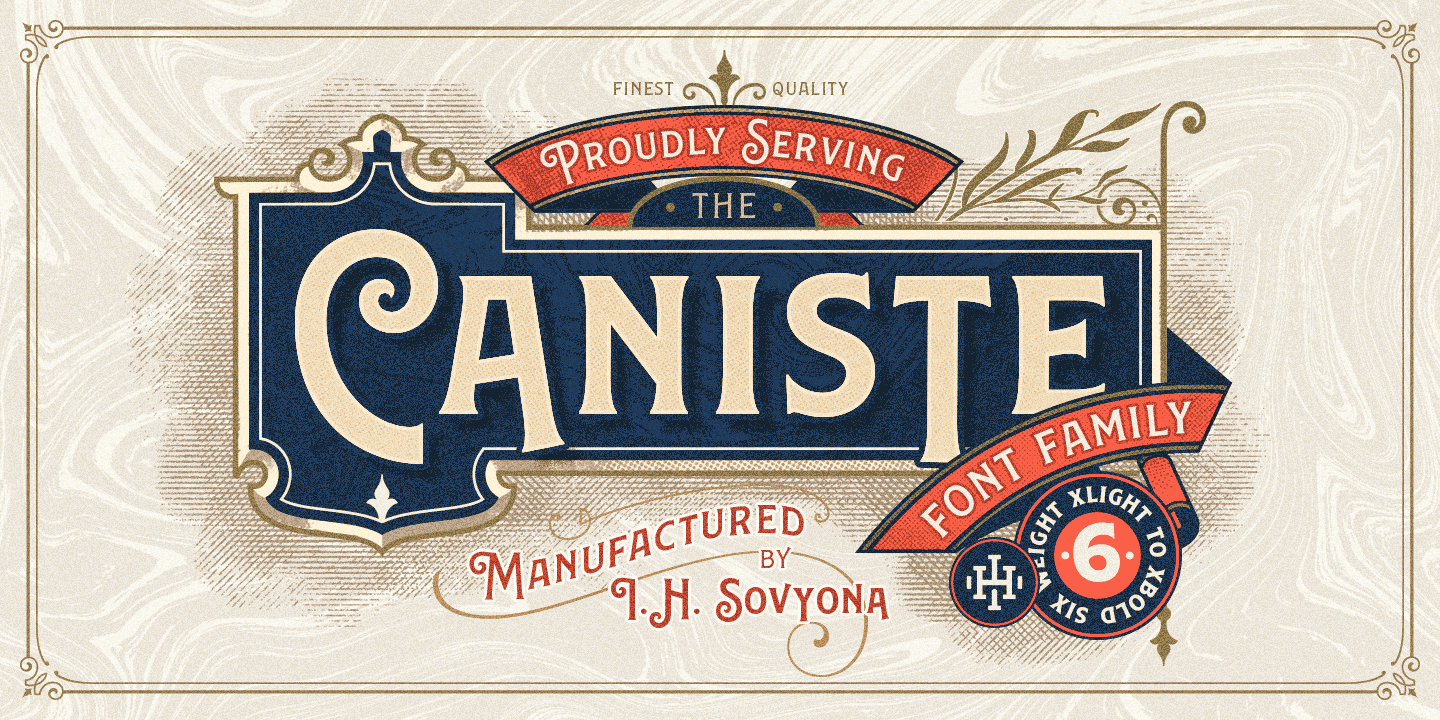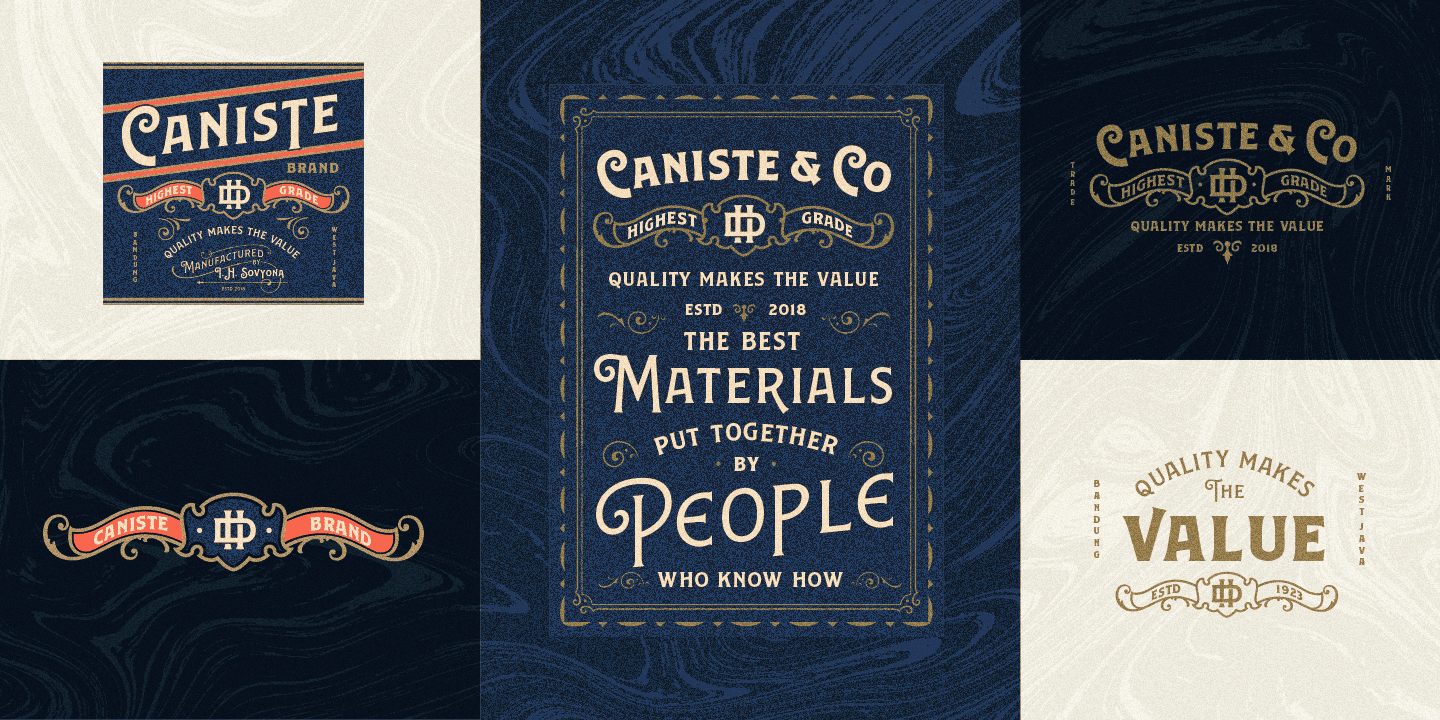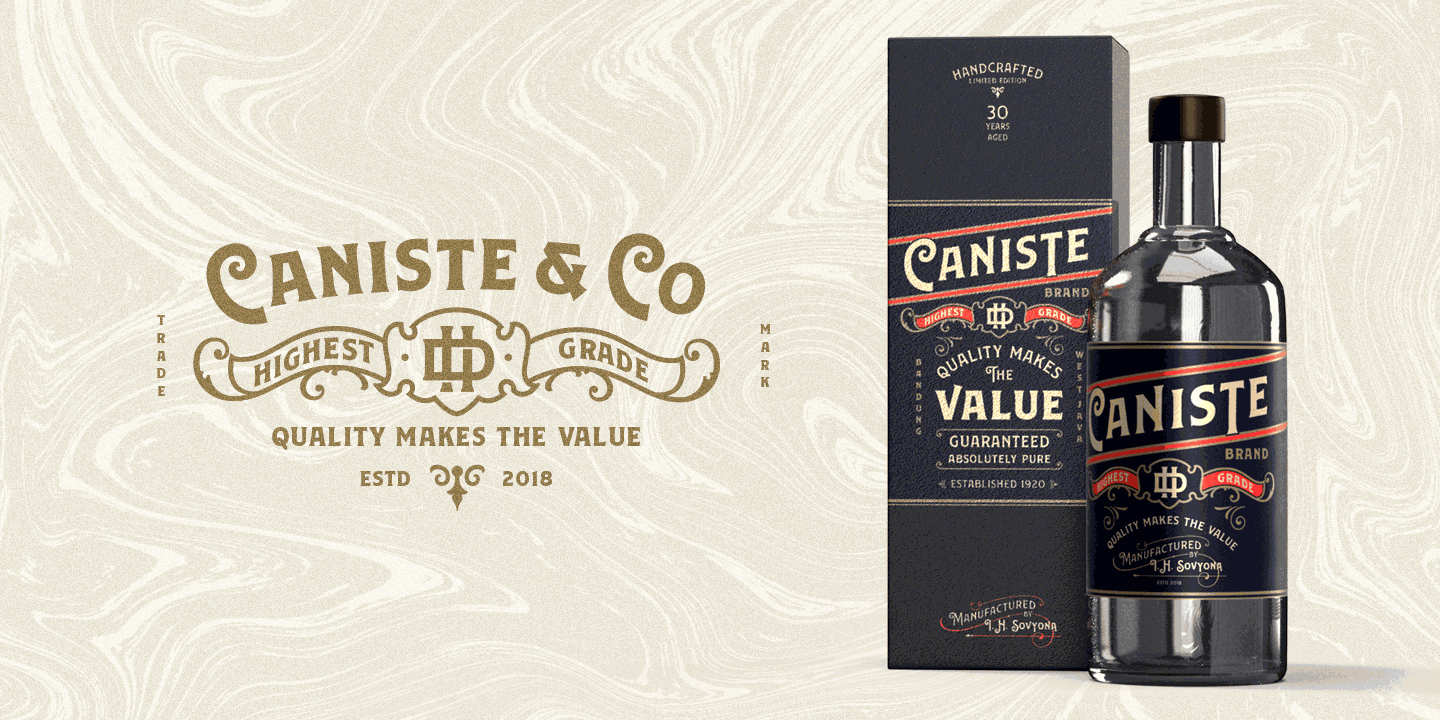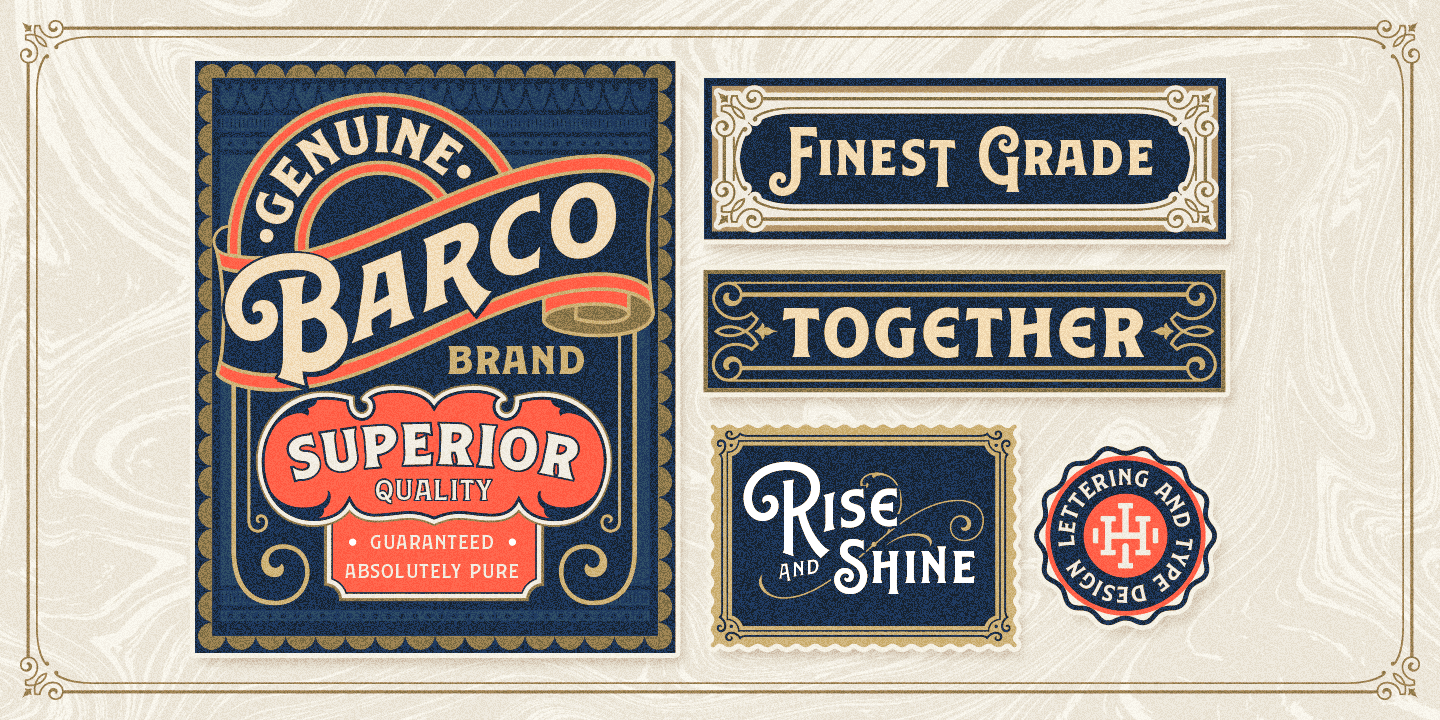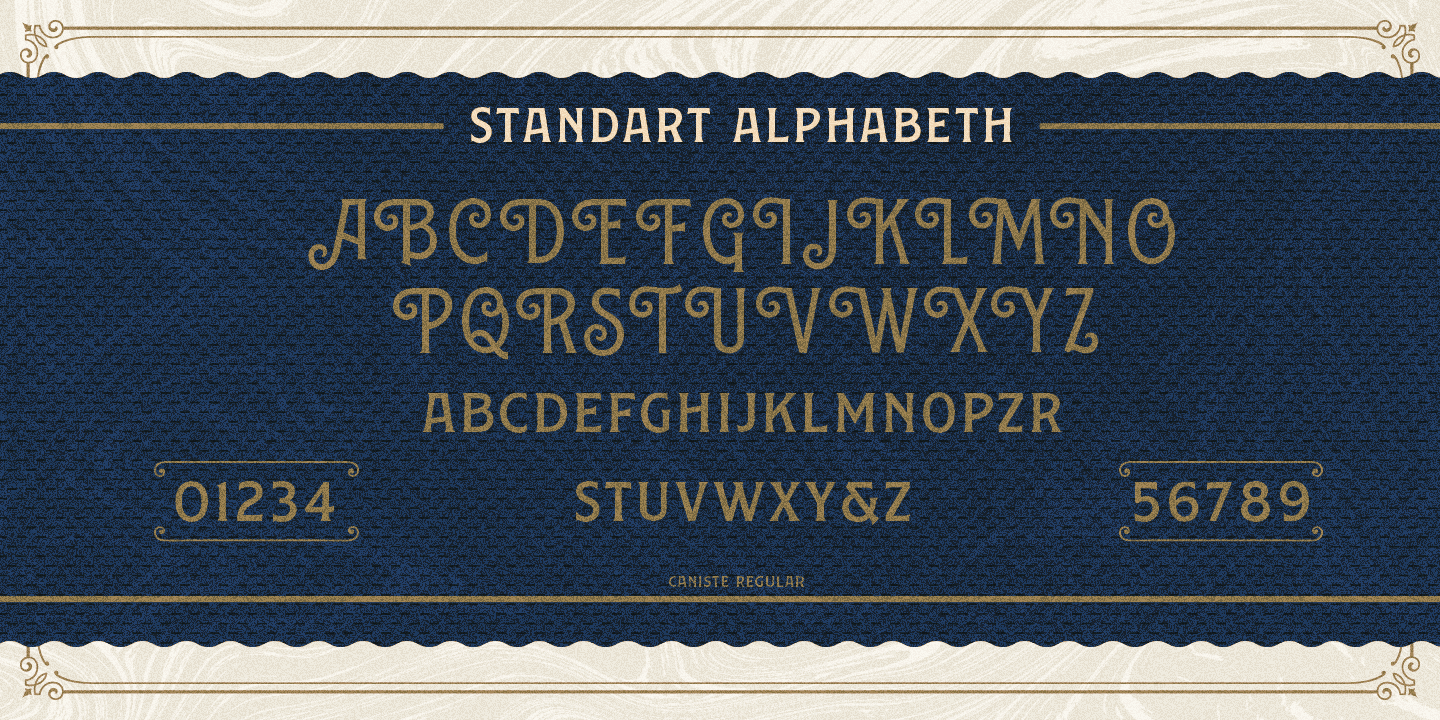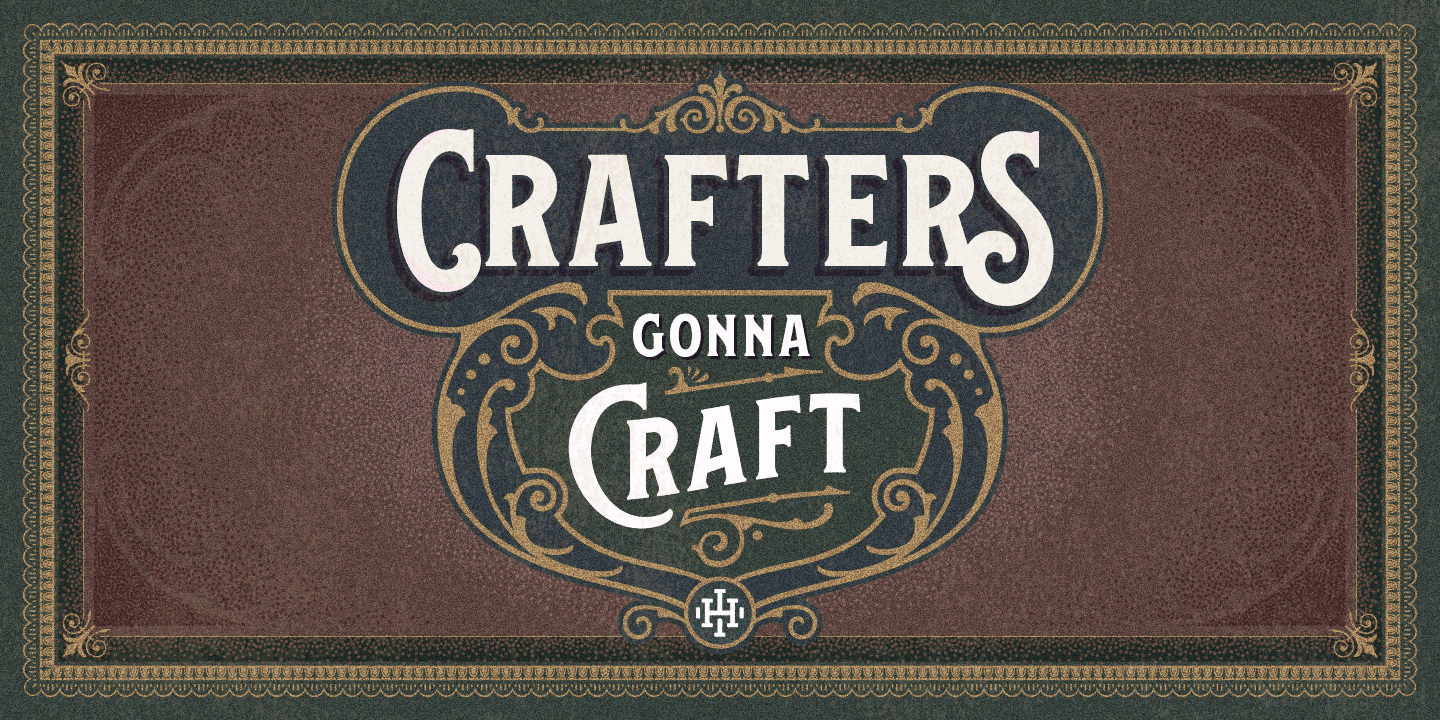
Letterer and type designer based in Bandung, Indonesia. Producing high quality fonts. I usually include stylistic alternate, sometimes ornaments to decorate, and some swashes in font features, that allow you to mix and match pairs of letters to fit the design.
Since 2014 I decided to focus on typography. My interest in type design started when hand-lettering became my hobby, it is an honor when my works could be used.
I love vintage stuff, collecting vintage tin and packaging. There are so many designs I can make inspired from that, the color and shape of the letters which I think are beautiful and unique. Because of that, I kept trying to make a font that is easy to use and nice to look at and also, comfortable to read.